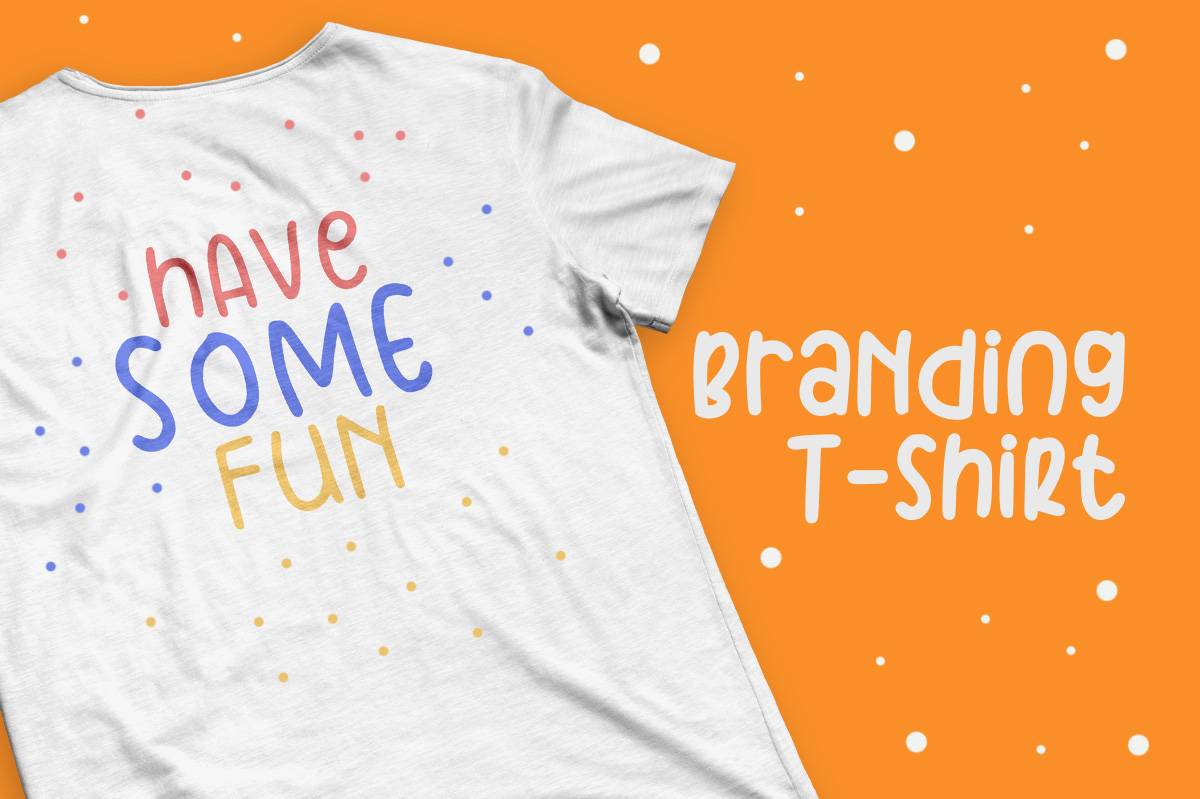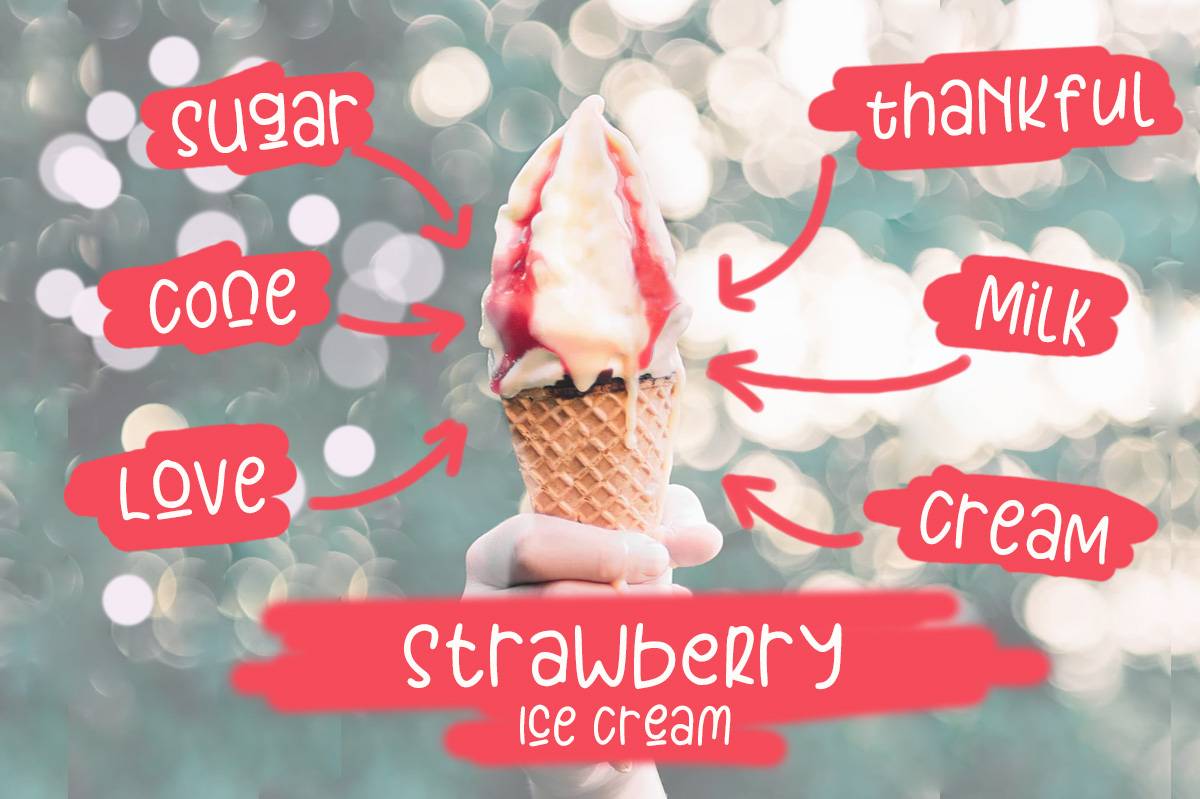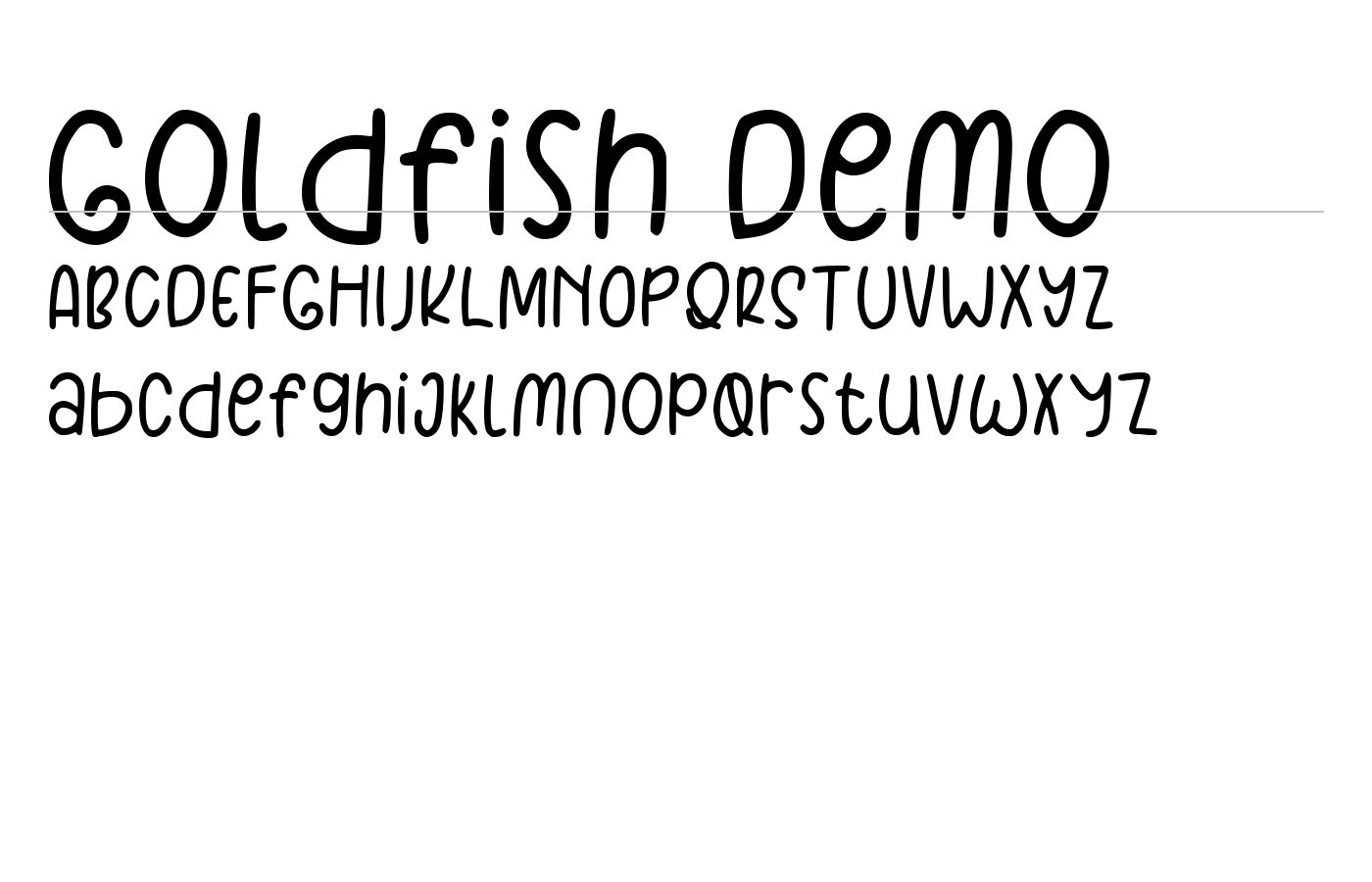
Goldfish Font is a playful, casual handwritten typeface with a light weight and slightly condensed width. Its tall x-height and soft, rounded strokes give it a friendly and approachable feel, making it perfect for informal designs, children's books, and creative branding. With its whimsical, slightly irregular letterforms, this font adds a fun and personal touch to headlines, logos, and packaging that aim to convey warmth and creativity.
Goldfish Font
About Goldfish Font
| Font family | Goldfish Font |
| Release date | 2019-05-09 |
| Designer | Trim Studio |